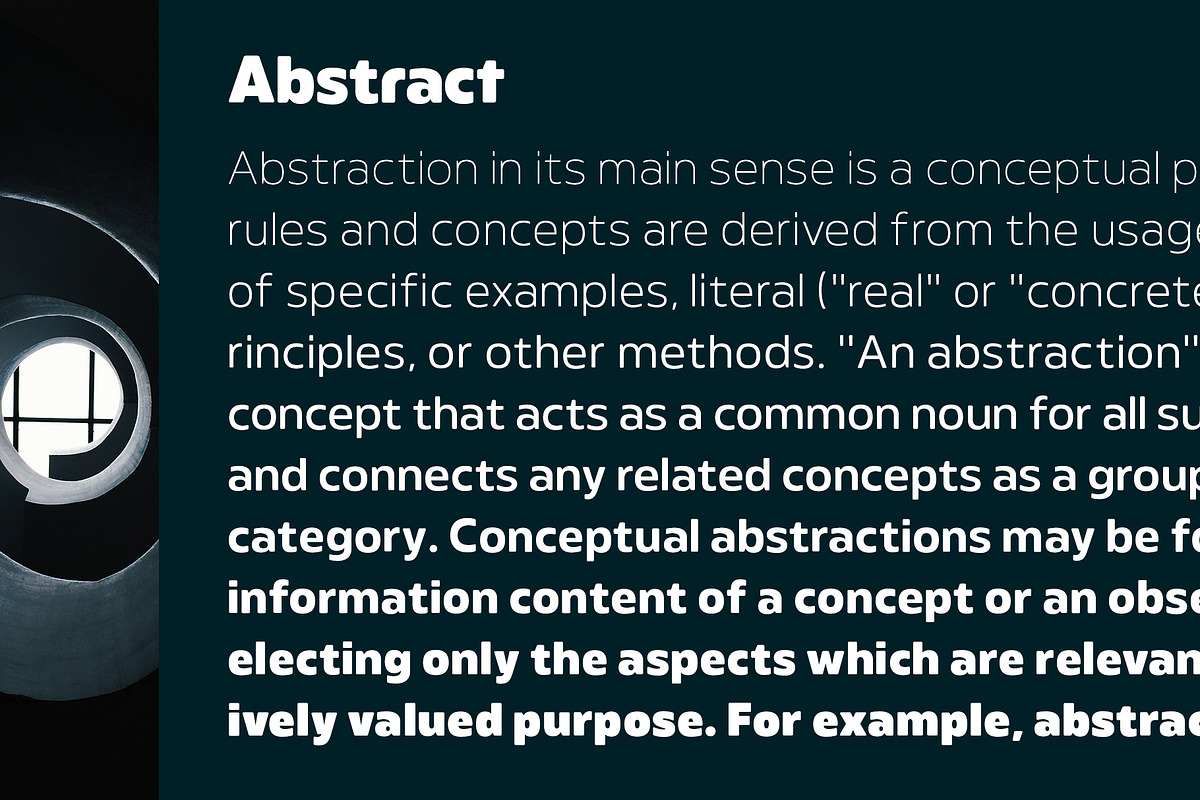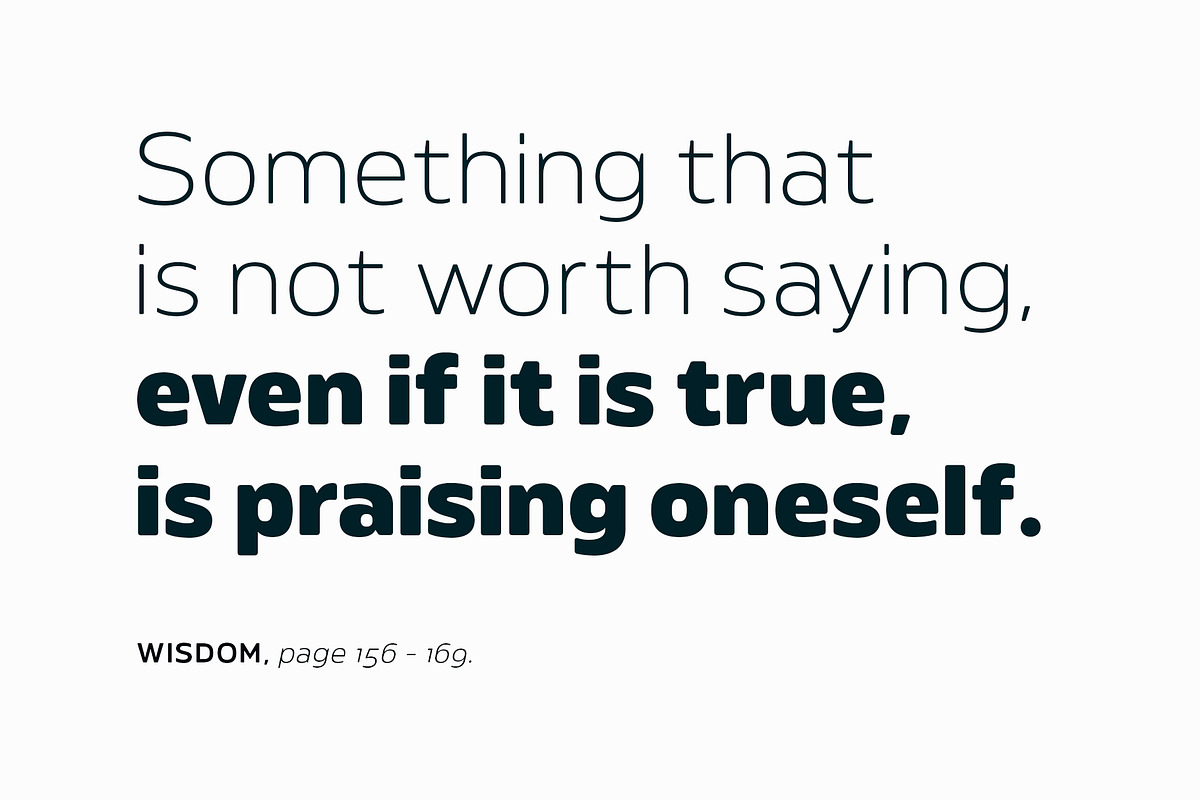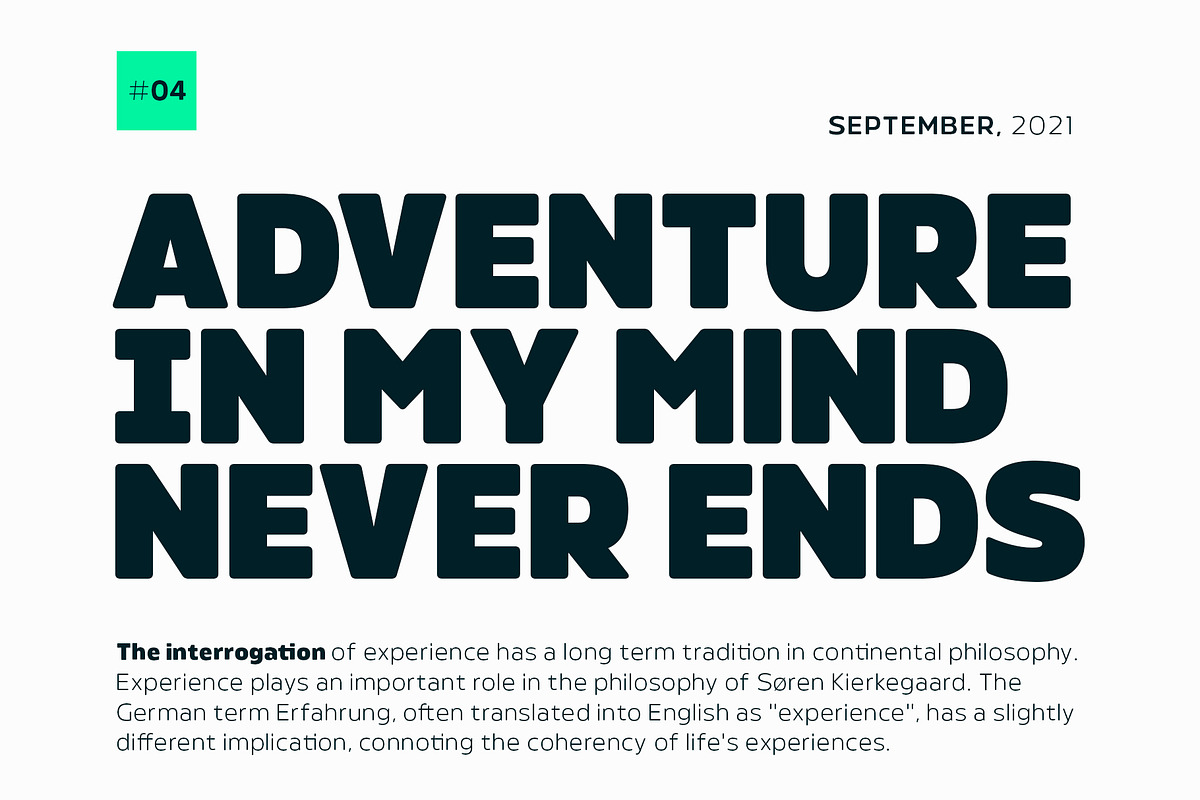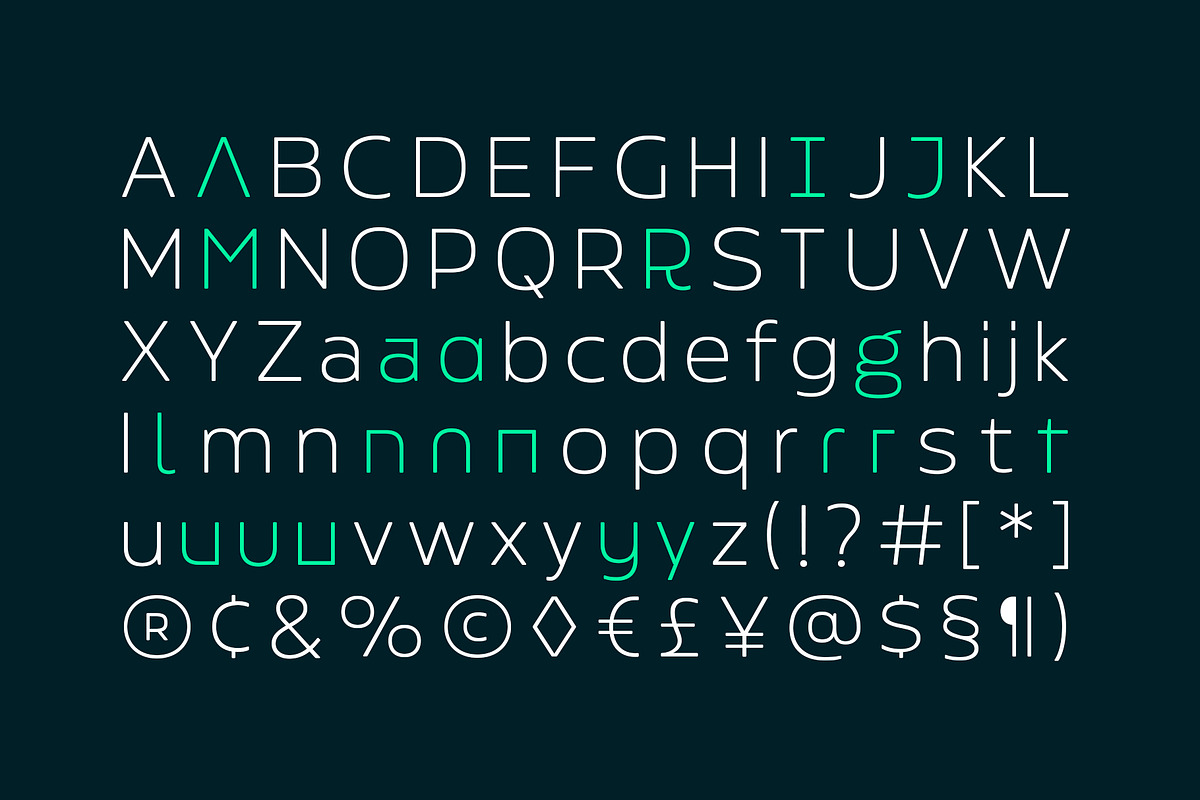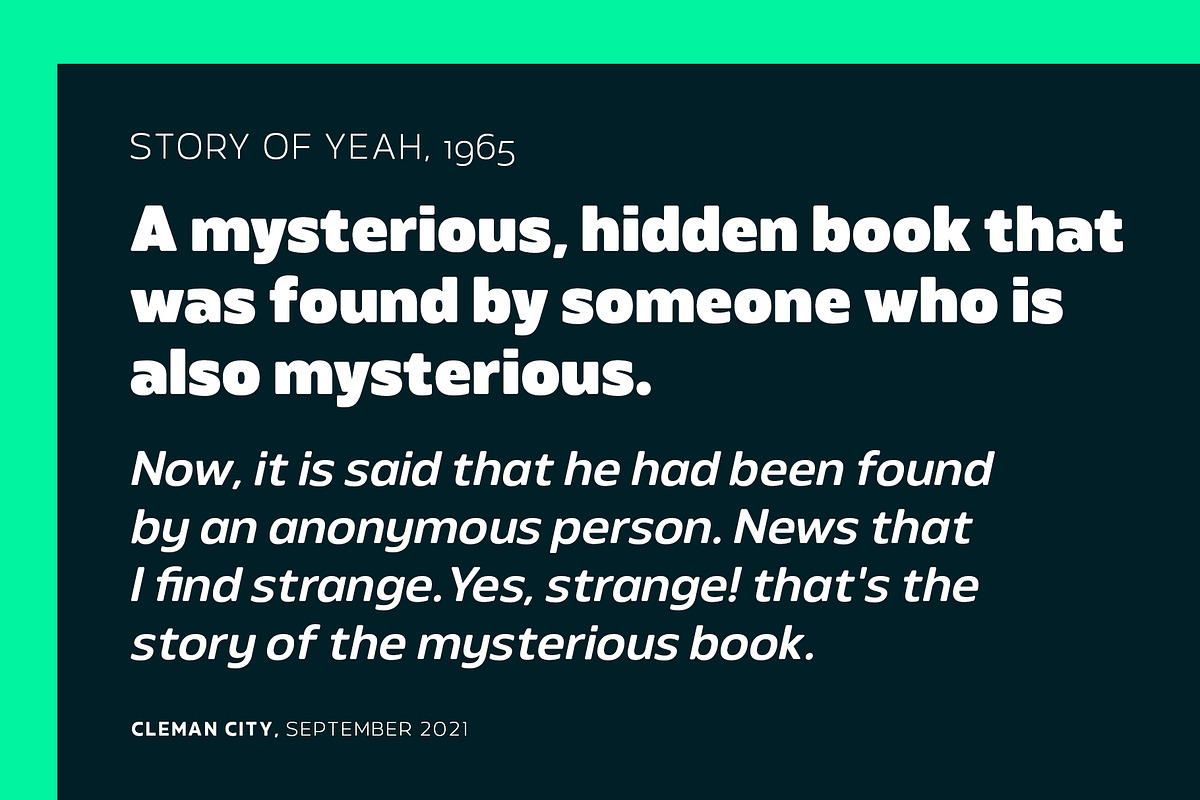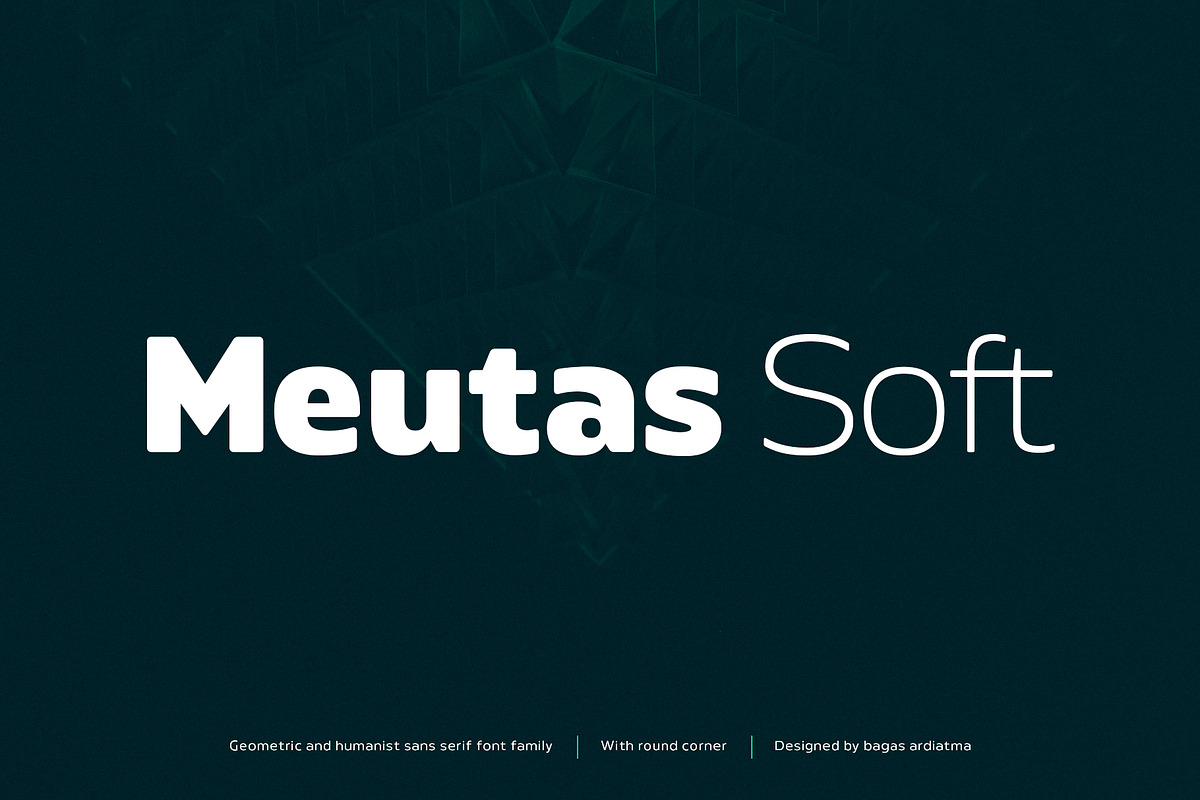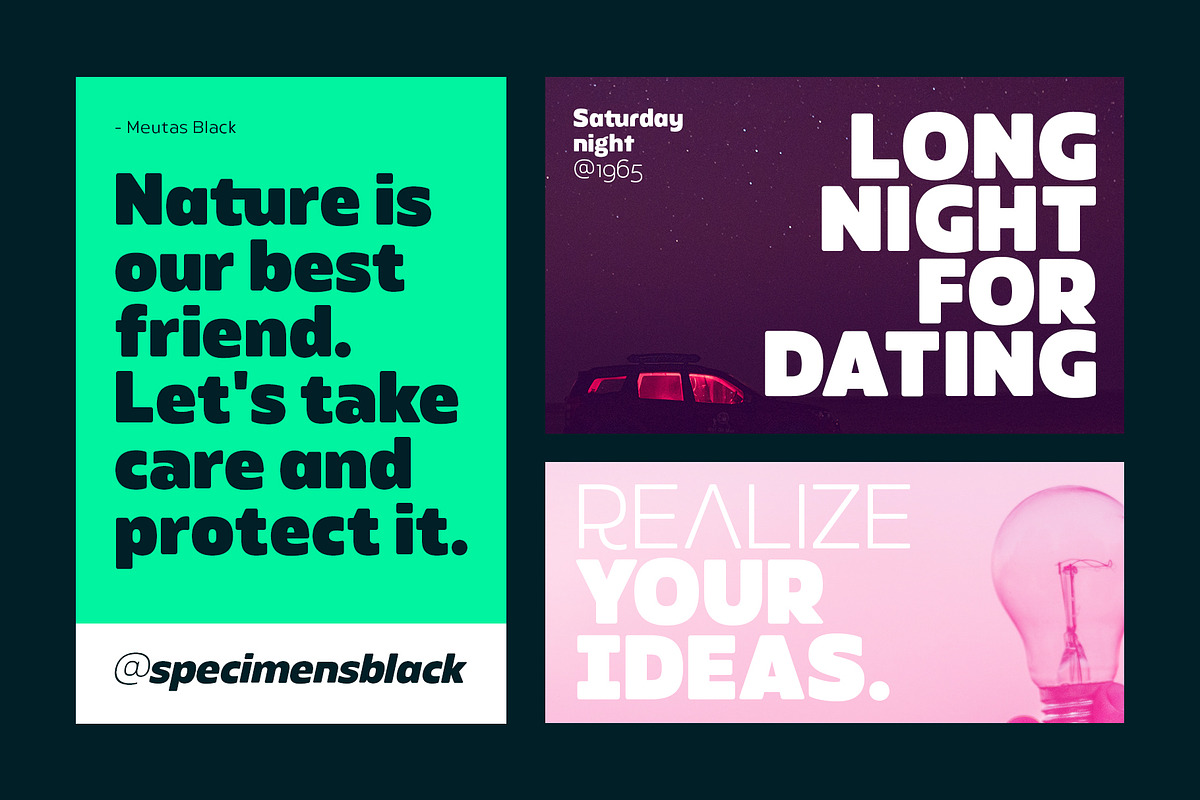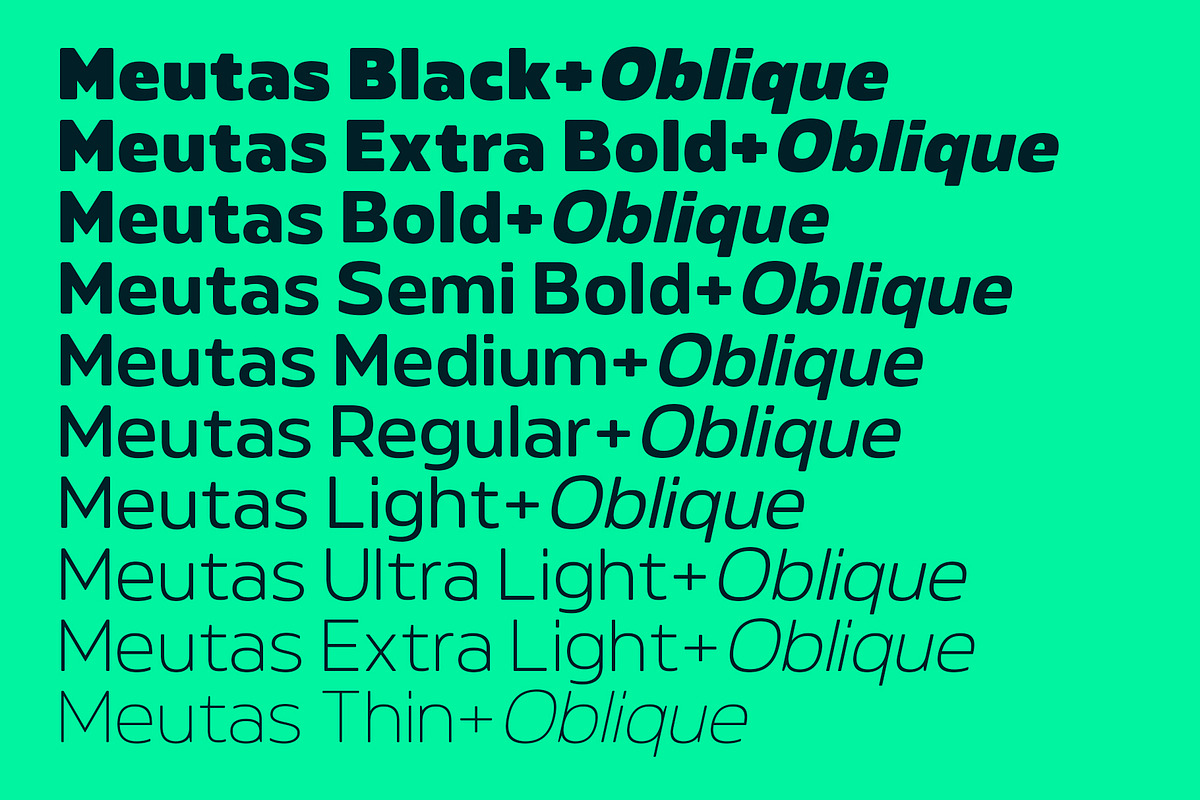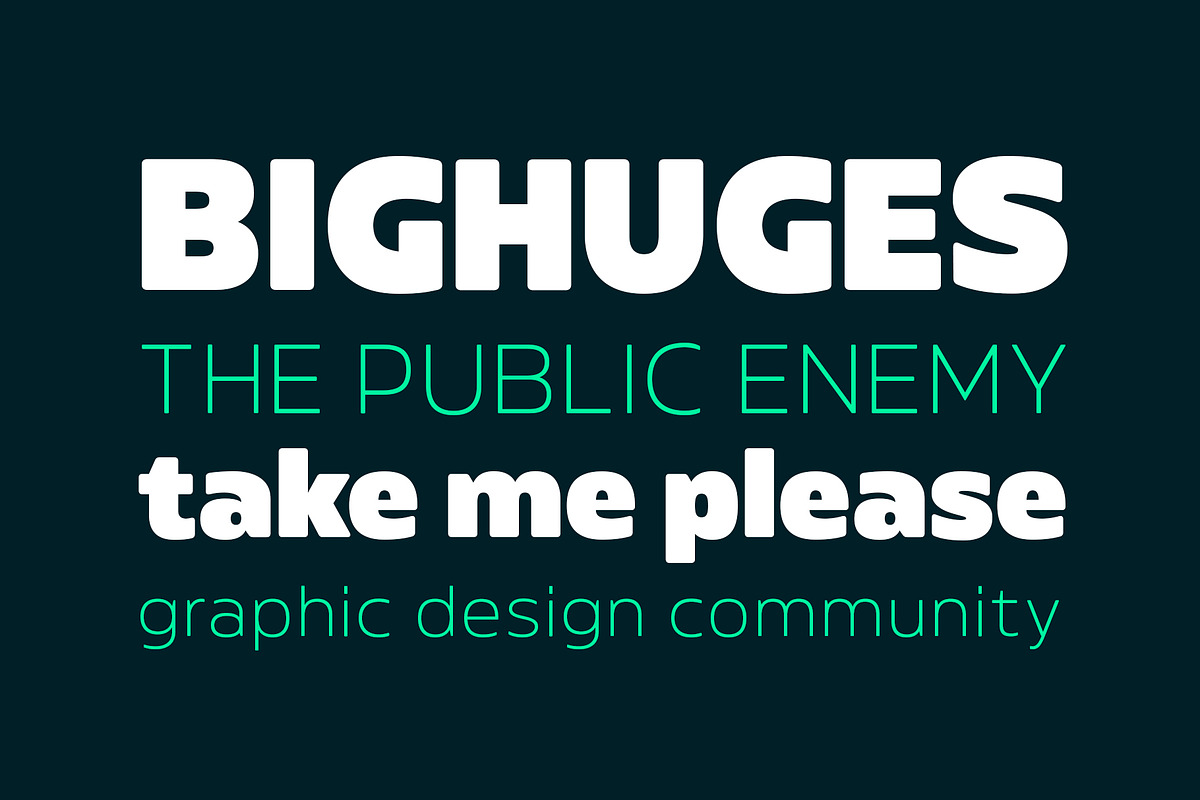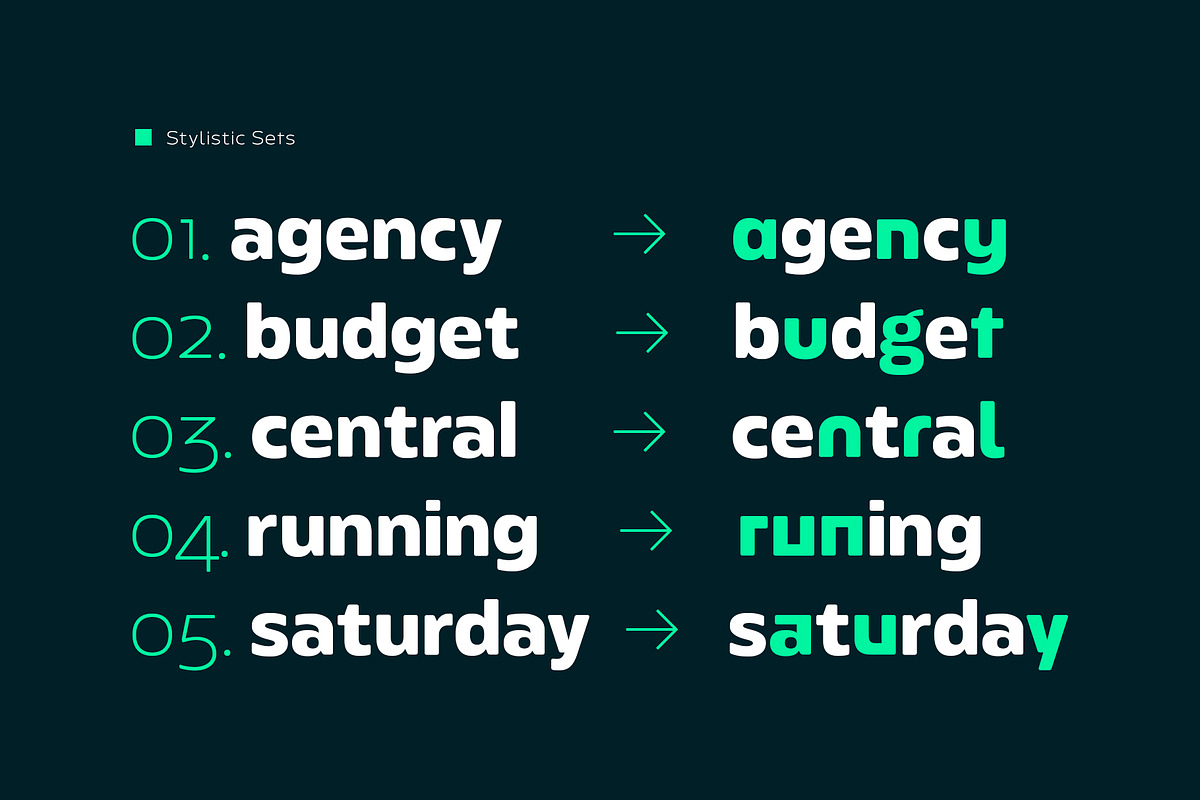
Meutas Soft Font Family
Meutas Soft is a sans serif font family which geometric and humanist make a blend. Make it more attractive and dynamic. Meutas Soft is designed for display and body text. Maximizes thickness while maintaining balance in each form. This makes it especially suitable for all kinds of creative projects. Meutas Soft is a rounded version of Meutas font.
Meutas Soft comes with 10 weights and a matching oblique, making it 20 styles. Some alternative glyphs will be an attractive choice. Makes every project you work on easier, and will certainly be awesome!
- Punctuation & symbols
- Stylistic Set
- International characters (Multilingual)
- And more